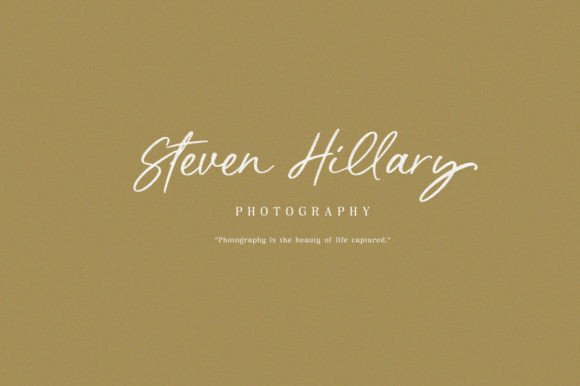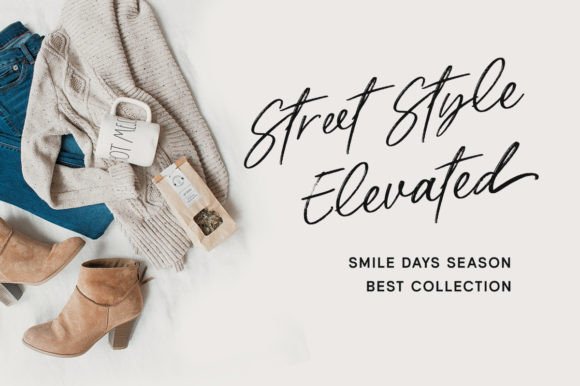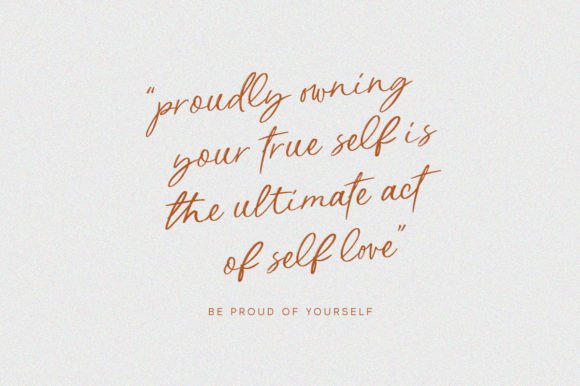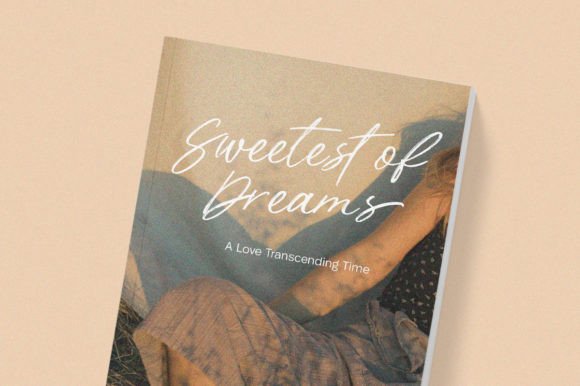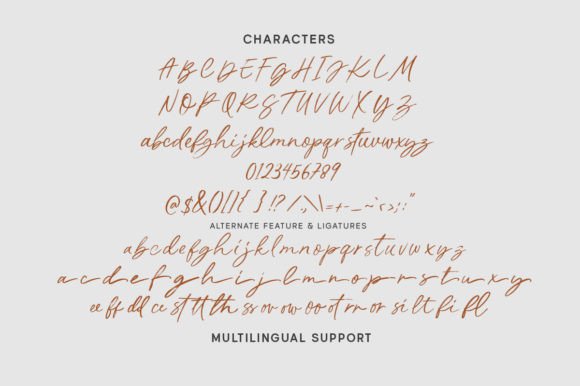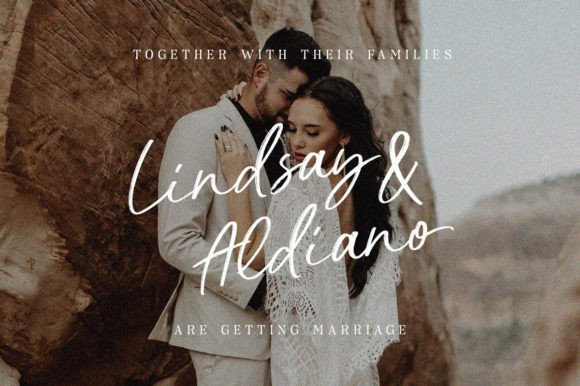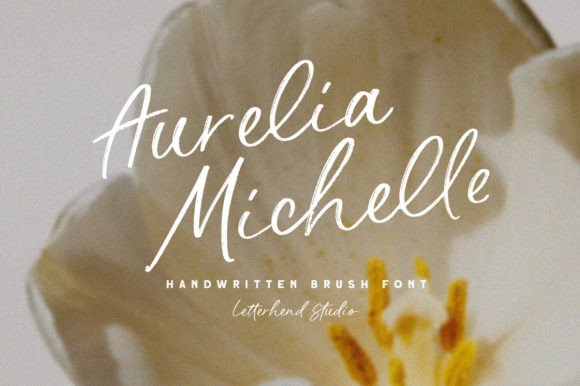
Meet Aurelia Michelle Font: The Epitome of Effortless Femininity and Chic Sophistication
In the realm of typography, few fonts manage to capture the essence of elegance and sophistication as effortlessly as Aurelia Michelle. This hand-drawn font, with its distinctive brush texture and delicate curves, has become a go-to choice for designers and crafters seeking to infuse their projects with a touch of refined beauty. In this article, we’ll delve into the world of Aurelia Michelle, exploring its unique characteristics, uses, and the magic it brings to design projects.
The Genesis of Aurelia Michelle
Aurelia Michelle is more than just a font; it’s a piece of art that speaks to those who appreciate the finer details in design. Created with meticulous care, this font embodies a sense of femininity and chic sophistication that is hard to find in digital typography. Its hand-drawn nature gives it a personal touch, making each letter and word feel crafted with love and attention to detail.
Unique Characteristics of Aurelia Michelle
So, what makes Aurelia Michelle stand out in a sea of digital fonts? Here are a few of its unique characteristics:
- Brush Texture: The font boasts a beautiful brush texture that gives it an organic, hand-painted feel. This texture adds depth and warmth to any design, making it instantly more engaging.
- Delicate Curves: Aurelia Michelle’s letters are characterized by their delicate curves and smooth lines. This lends the font an air of elegance and sophistication, perfect for projects that require a touch of class.
- Femininity: The font exudes a sense of femininity without being overly frilly or over-the-top. This makes it versatile for a wide range of projects, from fashion blogs to wedding invitations.
Uses of Aurelia Michelle
The versatility of Aurelia Michelle is one of its most appealing qualities. Here are some popular uses for this stunning font:
- Branding: Aurelia Michelle can add a touch of sophistication to your brand’s logo or marketing materials, helping you stand out in a crowded marketplace.
- Wedding Design: Its elegant and feminine qualities make it perfect for wedding invitations, save-the-dates, and other wedding-related design projects.
- Fashion and Beauty: For fashion and beauty brands, Aurelia Michelle offers a way to communicate elegance and style through typography.
- Stationery and Crafts: Crafters and stationery designers will love using Aurelia Michelle for handmade cards, journals, and other paper crafts.
Tips for Using Aurelia Michelle
To make the most of Aurelia Michelle, consider the following tips:
- Pair it with Contrasting Fonts: Combine Aurelia Michelle with a sans-serif or script font to create visual interest and hierarchy in your designs.
- Experiment with Colors: The font looks stunning in pastels, neutrals, and rich jewel tones. Don’t be afraid to experiment with different color palettes.
- Pay Attention to Spacing: Given its delicate nature, ensure you adjust the spacing between letters and lines to maintain readability and aesthetics.
Aurelia Michelle is a hand-drawn font that brings a unique blend of effortless femininity and chic sophistication to any design project. Its brush texture, delicate curves, and versatile nature make it a valuable addition to any designer’s toolkit. Whether you’re working on branding, wedding designs, fashion projects, or crafts, Aurelia Michelle offers a way to elevate your work with elegance and style. So, go ahead and let this beautiful font inspire your next creative endeavor.
With Aurelia Michelle, you’re not just choosing a font; you’re embracing a design philosophy that values beauty, elegance, and a touch of personal flair. Make your mark with Aurelia Michelle and watch your designs transform into stunning works of art.